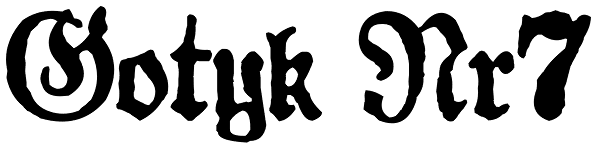
Gotyk Nr7
Gotyk Nr7 is a new, completely redesigned and improved version of my font Gotyk Poszarpany, which was released for the first time in 2001. Language support includes Western, Central and Eastern European character sets, as well as Baltic and Turkish...